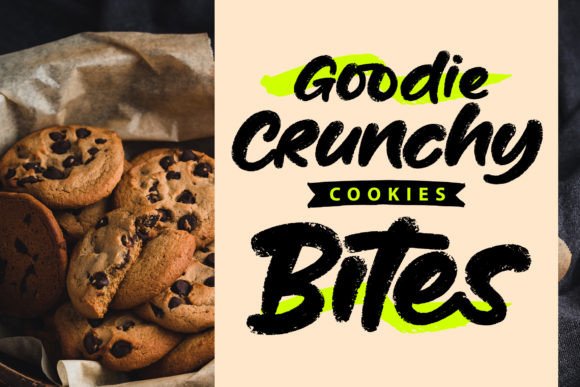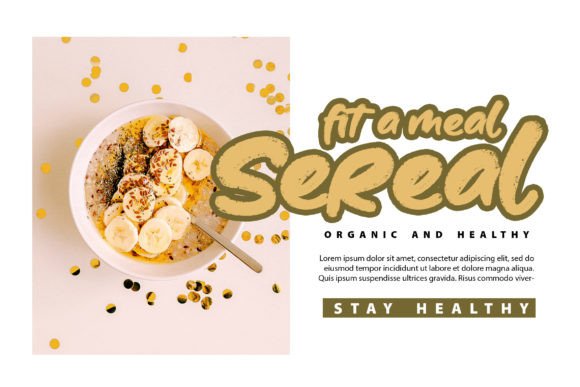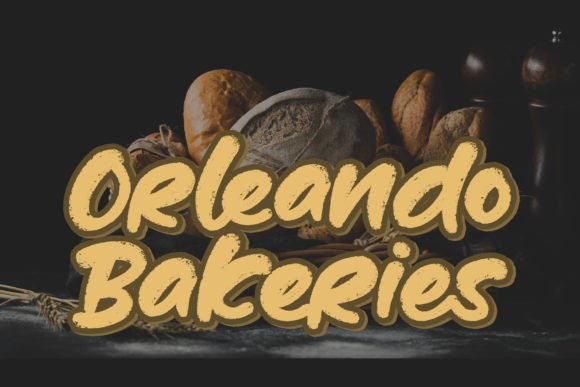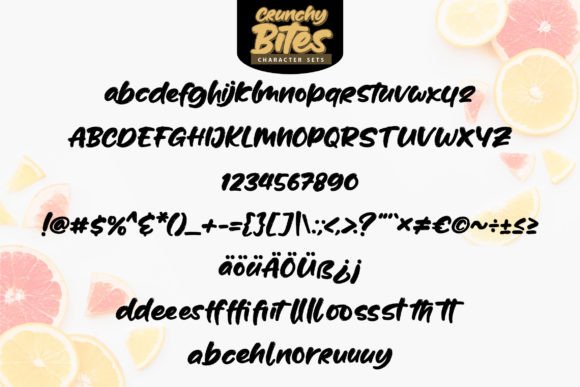
Crunchy Bites Font
About Crunchy Bites Font
Crunchy Bites is a bold handwritten font that exudes a calligraphy style, bringing a touch of elegance and character to your designs. This font stands out as a beautiful choice for a variety of creative applications, including invitations, greeting cards, branding materials, business cards, quotes, posters, and more.
The boldness of Crunchy Bites adds a sense of strength and prominence to your text, making it suitable for projects where you want your message to stand out. The calligraphy style infuses a touch of sophistication, contributing to an overall aesthetic that is both eye-catching and elegant.
Its versatility allows Crunchy Bites to shine across different design contexts, ensuring that it looks equally beautiful on invitations as it does on business cards. Whether you’re crafting a heartfelt quote or creating a striking poster, this font adapts seamlessly to your creative vision.
Incorporate Crunchy Bites into your design projects to experience the transformative impact it brings. Let it be the bold and elegant element that enhances the visual appeal of your invitations, greeting cards, branding materials, and beyond.
In summary, Crunchy Bites is more than just a font; it’s a creative asset that combines boldness with calligraphy style. Embrace its versatility as you explore its applications in various design projects, ensuring that your creations radiate beauty and elegance. Let Crunchy Bites be the distinctive choice that makes your text look captivating and refined.